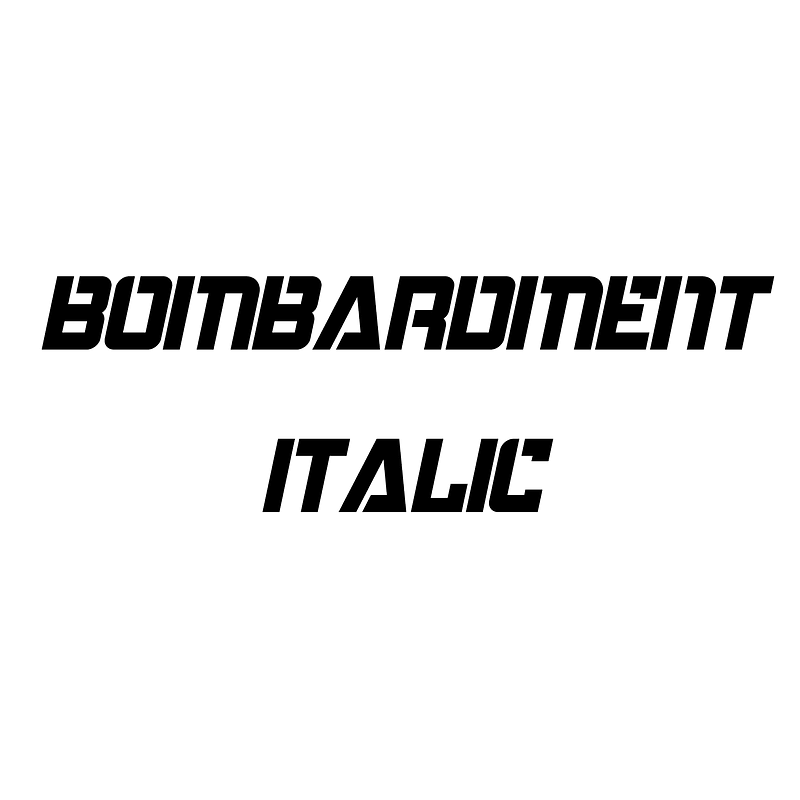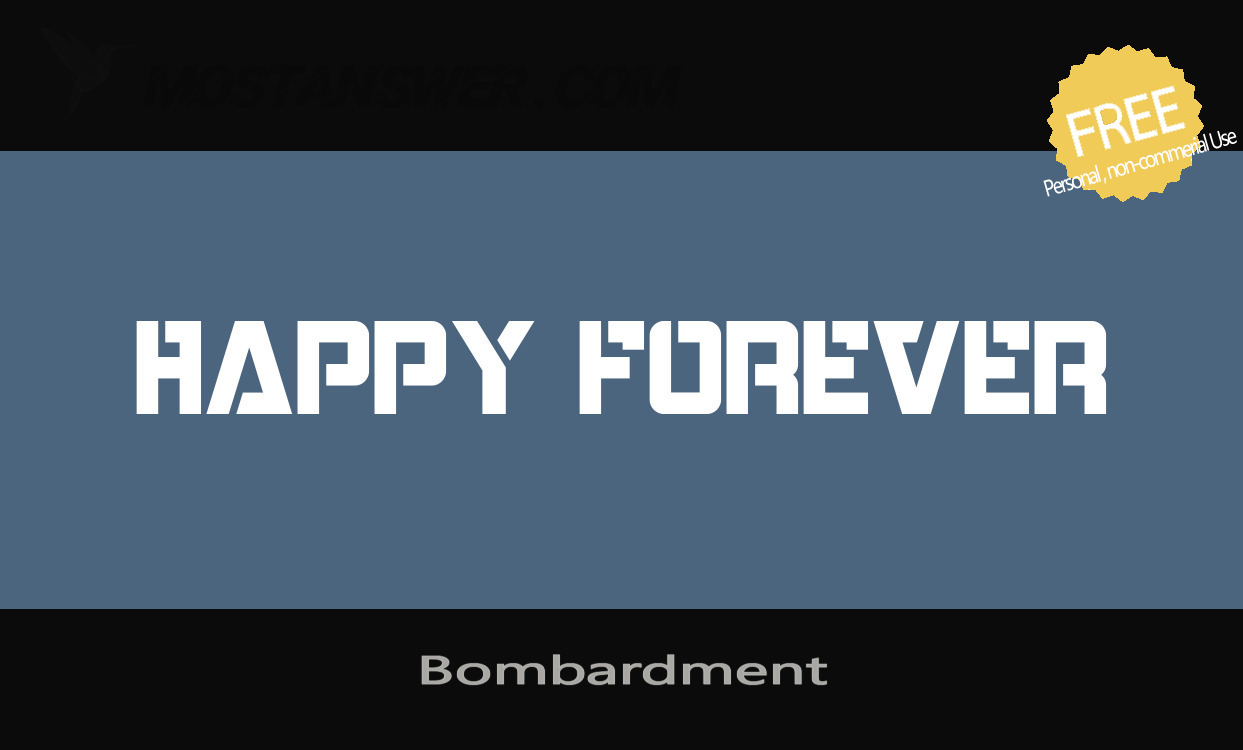
Bombardment Font . It features clean, sharp lines and a geometric, futuristic look. ️ customize your own preview on ffonts.net to make sure it`s the right one for your designs. Download and install the bombardment font by vladimir nikolic. Bombardment font download is available free from fontget. The bombardment font has been downloaded 8,732 times. Discover the free bombardment font at free font download ! For commercial use, please order a license here: Installable on pc, mac, linux, ios, and android platforms. Bombardment is a fancy type font that can be used on any device such as pc, mac, linux, ios and android. The bombardment regular font contains 91 beautifully designed characters. This font has 4 variant available. Bombardment font is a modern, condensed typeface that was designed by jeremy vessey. Download bombardment font family · free for commercial use ·.
Download bombardment font family · free for commercial use ·. Installable on pc, mac, linux, ios, and android platforms. Bombardment font is a modern, condensed typeface that was designed by jeremy vessey. It features clean, sharp lines and a geometric, futuristic look. Download and install the bombardment font by vladimir nikolic. Bombardment font download is available free from fontget. Discover the free bombardment font at free font download ! ️ customize your own preview on ffonts.net to make sure it`s the right one for your designs. The bombardment font has been downloaded 8,732 times. This font has 4 variant available.
Bombardment Font Bombardment is a fancy type font that can be used on any device such as pc, mac, linux, ios and android. For commercial use, please order a license here: The bombardment regular font contains 91 beautifully designed characters. Bombardment font is a modern, condensed typeface that was designed by jeremy vessey. Bombardment font download is available free from fontget. Download and install the bombardment font by vladimir nikolic. Discover the free bombardment font at free font download ! Installable on pc, mac, linux, ios, and android platforms. Bombardment is a fancy type font that can be used on any device such as pc, mac, linux, ios and android. It features clean, sharp lines and a geometric, futuristic look. The bombardment font has been downloaded 8,732 times. Download bombardment font family · free for commercial use ·. This font has 4 variant available. ️ customize your own preview on ffonts.net to make sure it`s the right one for your designs.
Bombardment Font Family · 1001 Fonts Bombardment Font The bombardment font has been downloaded 8,732 times. For commercial use, please order a license here: Bombardment is a fancy type font that can be used on any device such as pc, mac, linux, ios and android. Bombardment font is a modern, condensed typeface that was designed by jeremy vessey. ️ customize your own preview on ffonts.net to make sure. Bombardment Font.
Download free Bombardment Regular font Bombardment.ttf Bombardment Font Bombardment font is a modern, condensed typeface that was designed by jeremy vessey. Download and install the bombardment font by vladimir nikolic. Download bombardment font family · free for commercial use ·. Discover the free bombardment font at free font download ! It features clean, sharp lines and a geometric, futuristic look. Bombardment is a fancy type font that can. Bombardment Font.
Bombardment Font FREE Download & Similar Fonts FontGet Bombardment Font The bombardment regular font contains 91 beautifully designed characters. Installable on pc, mac, linux, ios, and android platforms. ️ customize your own preview on ffonts.net to make sure it`s the right one for your designs. It features clean, sharp lines and a geometric, futuristic look. Download and install the bombardment font by vladimir nikolic. For commercial use, please order a. Bombardment Font.
Gaza Attacks on humanitarian workers amid relentless bombardment make Bombardment Font This font has 4 variant available. Discover the free bombardment font at free font download ! ️ customize your own preview on ffonts.net to make sure it`s the right one for your designs. It features clean, sharp lines and a geometric, futuristic look. The bombardment font has been downloaded 8,732 times. Bombardment font download is available free from fontget. The. Bombardment Font.
Bombardment 3D Regular font Bombardment Font Download and install the bombardment font by vladimir nikolic. This font has 4 variant available. Bombardment font is a modern, condensed typeface that was designed by jeremy vessey. The bombardment font has been downloaded 8,732 times. Bombardment is a fancy type font that can be used on any device such as pc, mac, linux, ios and android. Bombardment font download. Bombardment Font.
Bombardment Font Family · 1001 Fonts Bombardment Font Bombardment font is a modern, condensed typeface that was designed by jeremy vessey. Download and install the bombardment font by vladimir nikolic. The bombardment regular font contains 91 beautifully designed characters. This font has 4 variant available. The bombardment font has been downloaded 8,732 times. Bombardment font download is available free from fontget. Download bombardment font family · free for. Bombardment Font.